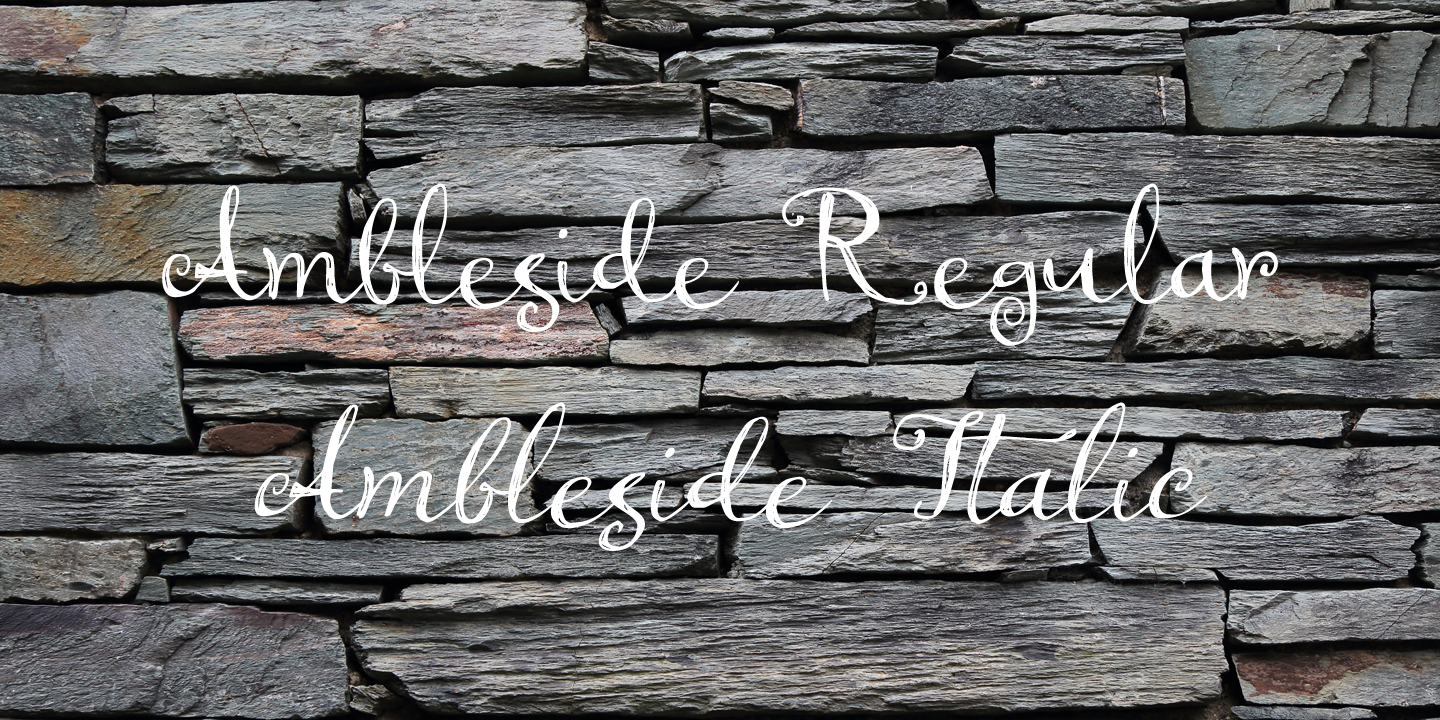
Ambleside Font is perfectly suited for diverse design applications including artisan brand identities, handcrafted product packaging, vintage-inspired posters, rustic wedding invitations, organic food labeling, craft brewery branding, boutique signage, and nostalgic editorial designs that require an authentic, handmade aesthetic.
What makes Ambleside Font truly exciting is its authentic handcrafted character that brings warmth and personality to any design project. This distinctive typeface captures the essence of traditional hand-lettering with its natural imperfections and organic flow, creating an immediate emotional connection with viewers. The font's carefully preserved irregularities and subtle texture variations give each letter a unique charm that digital fonts often lack. Its versatile nature allows it to convey both casual friendliness and sophisticated craftsmanship, making it ideal for brands seeking to establish trust and authenticity.
The Ambleside Font family includes multiple stylistic variations to enhance design flexibility. The collection features Regular, Bold, and Light weights, each maintaining the font's distinctive handcrafted appeal while offering different levels of visual impact. The family also includes alternate characters, swashes, and decorative elements that add personality and customization options. Additional features include contextual alternates that prevent repetitive letter combinations, creating a more natural handwritten appearance.
Creative professionals consistently choose Ambleside Font Free Download for projects requiring authentic personality and artisanal quality. The font's organic character makes it particularly effective for small businesses and craft-focused brands looking to differentiate themselves in competitive markets. Its readability remains excellent across various sizes, from large headlines to smaller supporting text, ensuring consistent brand communication throughout different applications.
The technical excellence of Ambleside Font includes extensive language support, special ligatures, and carefully crafted spacing that maintains the natural flow of handwritten text. The font's OpenType features provide automatic substitutions and contextual alternates that enhance the authentic handmade appearance.
For designers seeking to infuse their projects with genuine character and artisanal charm, Ambleside Font offers the perfect solution. Its ability to convey authenticity while maintaining professional quality makes it invaluable for brands emphasizing craftsmanship, tradition, and personal connection. The font's versatility ensures it works beautifully across both digital and print media, creating cohesive brand experiences that resonate with audiences seeking genuine, handcrafted aesthetics.